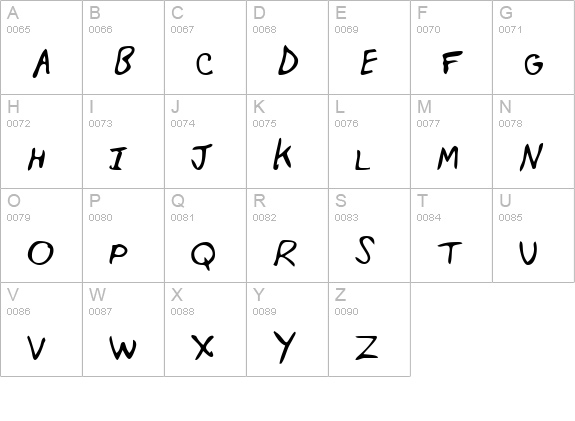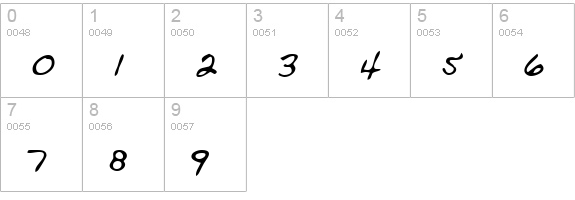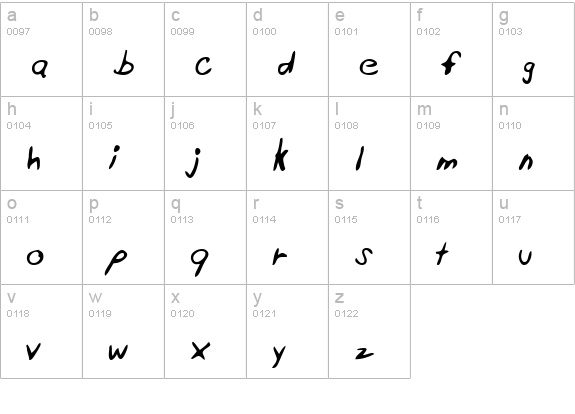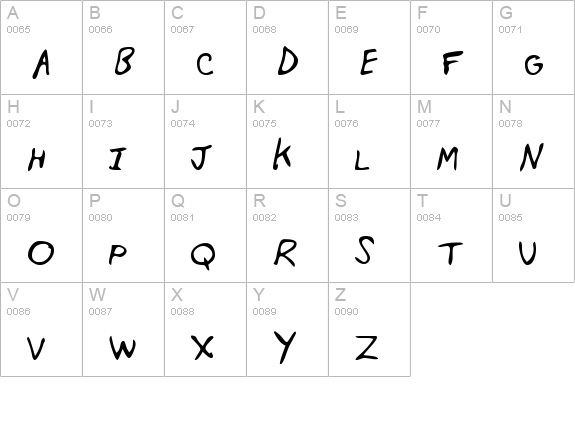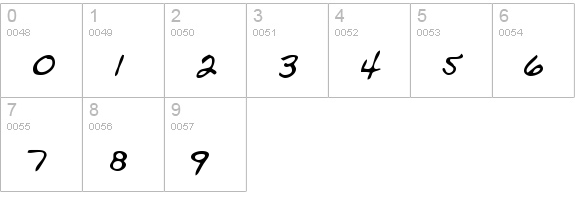
MontysHand Regular Font Details
MontysHand Regular is the standard, neutral variant in the MontysHand typeface family \xE2\x80\x94 well suited to general body text, paragraphs, and standard typographic work.
MontysHand Regular is a charming and versatile font that exudes a sense of warmth and friendliness. Its handwritten style gives a personal touch to any design, making it perfect for greeting cards, invitations, posters, and more. The flowing strokes and elegant curves of MontysHand Regular add a touch of elegance to any project. Best of all, MontysHand Regular is completely free to download at FontsMarket.com. Whether you're a professional designer or a hobbyist looking to add a creative flair to your work, MontysHand Regular is the perfect choice. Download it now and start adding a touch of handmade charm to your projects.